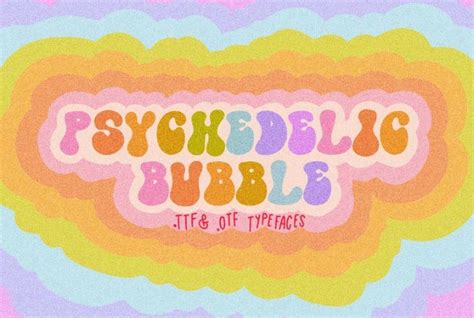
Hey design enthusiasts, let’s talk about fonts! Specifically, psychedelic fonts . You know, those groovy, mind-bending typographies that scream 60s and 70s vibes? We’re talking about fonts that are anything but boring. They’re expressive, they’re bold, and they can totally transform your designs from drab to fab. If you’re looking to add a splash of retro flair or a touch of artistic rebellion to your projects, you’ve come to the right place. We’re diving deep into the world of psychedelic fonts , exploring what makes them so special, where you can find them, and how to use them like a pro. Get ready to trip out on some seriously cool typography!
What Exactly Are Psychedelic Fonts?
So, what’s the deal with psychedelic fonts ? Think of the iconic posters from the Summer of Love or album covers from bands like Jefferson Airplane. That’s the aesthetic we’re talking about. These fonts are characterized by their flowing, often distorted letterforms, vibrant colors, and a general sense of playful chaos. They’re designed to grab attention and evoke a specific mood – one of freedom, experimentation, and maybe a little bit of mind expansion. Unlike your standard, everyday Arial or Times New Roman, psychedelic fonts are all about personality and making a statement. They often feature wavy lines, swirling patterns, bubbly shapes, and sometimes even optical illusions. The goal is to create something visually arresting, something that makes you stop and look. It’s not just about readability; it’s about impact. They draw inspiration from the art and music scenes of the 1960s and 70s, a period of significant cultural and artistic revolution. This era embraced bold experimentation, and that spirit is perfectly captured in the typography of the time. When you see a font that looks like it’s melting, dancing, or literally vibrating with energy, chances are you’re looking at a psychedelic-inspired typeface. These fonts aren’t just letters; they’re visual experiences.
Why Choose Psychedelic Fonts for Your Designs?
Now, you might be wondering, “Why would I use a psychedelic font in my modern designs?” Great question! The answer is simple: impact and memorability . In a world flooded with generic visuals, a well-chosen psychedelic font can make your project stand out from the crowd. They’re perfect for projects that need to convey a sense of fun, creativity, rebellion, or nostalgia. Think event posters for music festivals, album art, branding for quirky cafes or vintage shops, t-shirt designs, or even just a creative social media post. These fonts instantly inject personality and energy into your work. They can transport your audience back in time or create a unique, otherworldly feel. Plus, using a font that breaks the mold shows you’re not afraid to be different. It’s a way to express a specific brand identity or convey a particular message with visual flair. If your brand is all about being unconventional, playful, and a little bit out there, psychedelic fonts are your secret weapon. They can help you build a brand that’s instantly recognizable and memorable. Don’t be afraid to experiment! While they might seem niche, there are many ways to incorporate these fonts subtly or boldly to achieve your desired effect. They’re more versatile than you might think, capable of adding a touch of artistic flair to a wide range of projects. So, if you want your designs to have that extra oomph , that unique something that makes people remember them, psychedelic fonts are definitely worth exploring.
Where to Find Awesome Psychedelic Fonts
Tips for Using Psychedelic Fonts Effectively
Using psychedelic fonts is all about balance and intention, guys. These fonts are powerful, so you don’t want to overdo it and end up with a design that’s unreadable or just plain chaotic. Tip number one: Readability is still key. While psychedelic fonts are all about artistic expression, if people can’t read your message, what’s the point? Use them for headlines, titles, or short bursts of text where the visual impact is more important than dense paragraphs. For body text, it’s usually best to stick with a more legible font that complements the psychedelic display font. Tip number two: Less is often more. Choose one or two psychedelic fonts for a project and let them shine. Trying to cram too many different wild fonts together can create visual clutter. Tip number three: Pair them wisely. Combine your chosen psychedelic font with a simpler, clean font. This contrast helps the psychedelic font pop and ensures the overall design remains balanced. Think of a bold, wavy headline followed by clean, sans-serif body text. Tip number four: Consider your color palette. Psychedelic fonts often look amazing with vibrant, contrasting colors. Think bright oranges, electric blues, hot pinks, and lime greens. But again, don’t go overboard. Ensure your color choices enhance, rather than detract from, the font’s design and the overall message. Tip number five: Know your audience and your message. Who are you trying to reach? What feeling are you trying to evoke? Psychedelic fonts are fantastic for certain contexts, but they might not be the best fit for a formal corporate annual report, you know? Use them where they make sense and amplify your message. Finally, tip number six: Experiment! Play around with different font combinations, sizes, and colors. Sometimes the most unexpected pairings create the most memorable designs. Don’t be afraid to push the boundaries a little, but always keep your end goal in mind. With a little practice, you’ll master the art of using these unique fonts to create truly stunning visuals.
Examples of Psychedelic Font Styles
Let’s get visual, shall we? Psychedelic fonts come in a wild array of styles, each with its own unique flavor. We’ve got the bubbly and rounded types, which feel super friendly and retro, almost like something out of a cartoon. Then there are the wavy and flowing fonts, mimicking the liquid-like patterns seen in classic psychedelic art. These often have a mesmerizing, almost hypnotic quality. You’ll also find distorted and warped fonts, where the letters seem to stretch, bend, or melt, creating a trippy, optical illusion effect. Some fonts incorporate swirls and ornate details , adding an extra layer of complexity and visual interest, really leaning into that artistic, handcrafted feel. Others might feature bold outlines or heavy shadowing , giving them a pop-art edge. And don’t forget the fonts inspired by specific eras, like the Art Nouveau-esque styles with their elegant, organic curves or the more hard-edged, geometric designs that still retain that psychedelic spirit. Each style can evoke a different mood. Bubbly fonts might be great for a fun, lighthearted brand, while wavy fonts are perfect for music-related promotions. Distorted fonts can add a sense of unease or surrealism, suitable for avant-garde projects. The key is to understand the specific vibe each font style conveys and match it to your project’s needs. Exploring these different styles will help you discover the perfect typeface to bring your vision to life. It’s all about finding that visual language that speaks to your audience and captures the essence of your message. So go ahead, get lost in the wonderful world of psychedelic font aesthetics!
The Enduring Appeal of Psychedelic Typography
So, why do psychedelic fonts continue to capture our imagination decades after their heyday? It’s more than just a passing trend, guys. There’s a certain timelessness and cultural resonance to this style. In a world that often feels increasingly digital and sterile, psychedelic typography offers a welcome dose of humanity, artistry, and rebellion . It reminds us of a time when creativity flowed freely, when art and music were intertwined, and when breaking the mold was celebrated. These fonts carry an inherent sense of nostalgia, evoking feelings of freedom, peace, and counterculture movements. They represent a spirit of experimentation and individuality that still resonates today. Furthermore, the bold, attention-grabbing nature of psychedelic fonts makes them incredibly effective for making a statement. In an era of information overload, cutting through the noise with visually striking design is crucial. Psychedelic fonts excel at this. They have an innate ability to convey energy, excitement, and a sense of the extraordinary. Their unique aesthetic offers a powerful tool for designers looking to inject personality, creativity, and a distinctive edge into their work. Whether you’re aiming for a retro vibe or a modern, artistic statement, the influence of psychedelic typography is undeniable. It’s a testament to the power of design to transcend time and connect with audiences on an emotional level. The ipsychedelics font style, in particular, embodies this enduring appeal, offering a unique blend of artistic flair and retro charm that continues to inspire designers worldwide. It’s a reminder that sometimes, the most impactful designs come from embracing the unconventional and letting your creativity run wild. These fonts are not just letters; they are cultural artifacts that continue to inspire and inform contemporary design.